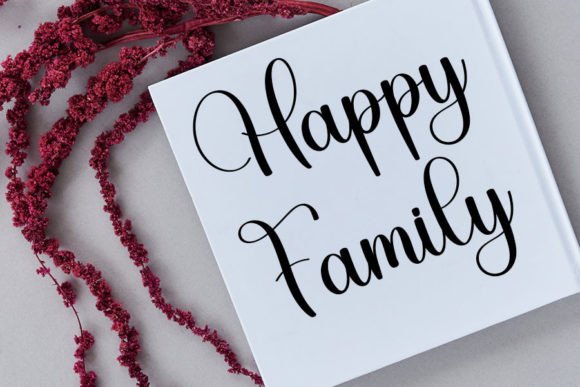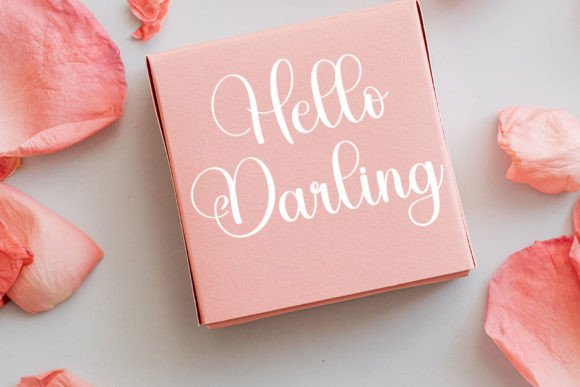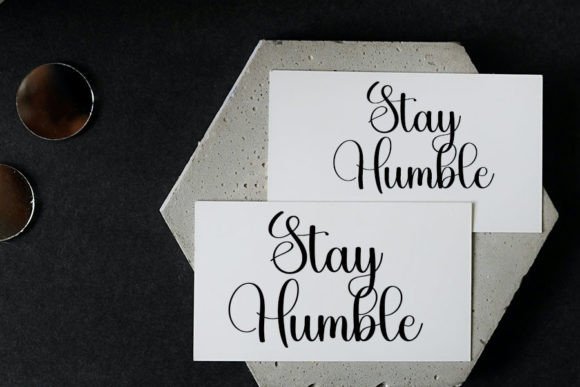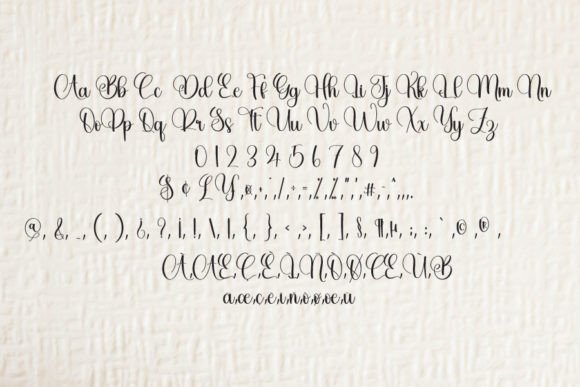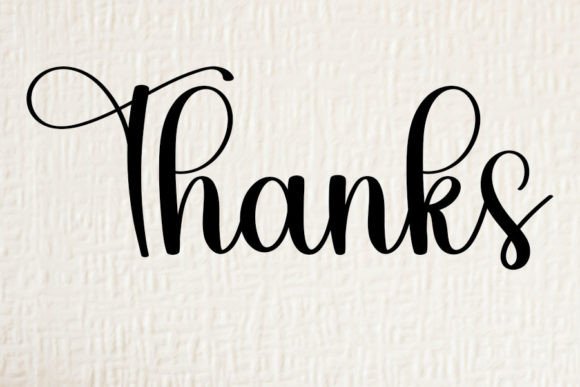
Adding a Touch of Handwritten Charm
Have you ever stared at a blank page, struggling to find the perfect font to bring your design to life? For designers, the search for the perfect font can be a daunting task, but what if I told you that the solution lies in the simplicity of a handwritten font?
Meet Acting Font, a charming and versatile typeface that’s perfect for adding a personal touch to your next project. With its natural, handwritten feel, Acting Font is guaranteed to add a warm and inviting ambiance to everything from greeting cards to headlines.
As a designer, you’ll appreciate the value of Acting Font for its flexibility and ease of use. Whether you’re working on a professional project or a personal creative endeavor, this font is sure to become a trusted companion in your design toolkit.
Key Features of Acting Font
- Unique Characteristics: The font features a unique, hand-drawn style with subtle brushstrokes and irregularities, giving it a distinctive and artistic look.
- Font Weight: The font offers various weights, including Light, Regular, Medium, Bold, and Extra Bold, allowing designers to achieve the desired level of emphasis and contrast.
Designer Review: Acting Font
Overall, I found Acting Font to be an intriguing yet imperfect typeface.
- Unique Character Shapes: Acting Font boasts distinctive, hand-drawn character shapes that add a touch of whimsy and personality to text.
- Highly Expressive: The font is perfect for conveying emotions and adding a sense of drama to your content.
- Readability: Despite its eccentricities, Acting Font remains relatively easy to read, making it a great choice for body text.
- Limited Legibility: In smaller sizes or for large blocks of text, Acting Font can become difficult to read due to its intricate details.
- Lack of Consistency: Some characters seem to be more refined than others, which can make the font feel disjointed.
- Not Ideal for Large Bodies of Text: Due to its eccentricities, Acting Font is best suited for short phrases or headlines, rather than lengthy paragraphs.
Acting Font is a solid choice for designers looking to add a touch of drama or personality to their projects. While it has its limitations, it can be a great addition to the right design. However, it may not be the best choice for every project or application.
Acting Font is ideal for:
- Creative projects that require a dramatic or theatrical feel.
- Headlines or titles that need to stand out.
- Projects that require a sense of playfulness or whimsy.
Remember to use Acting Font sparingly, as it can be overwhelming if used too extensively.